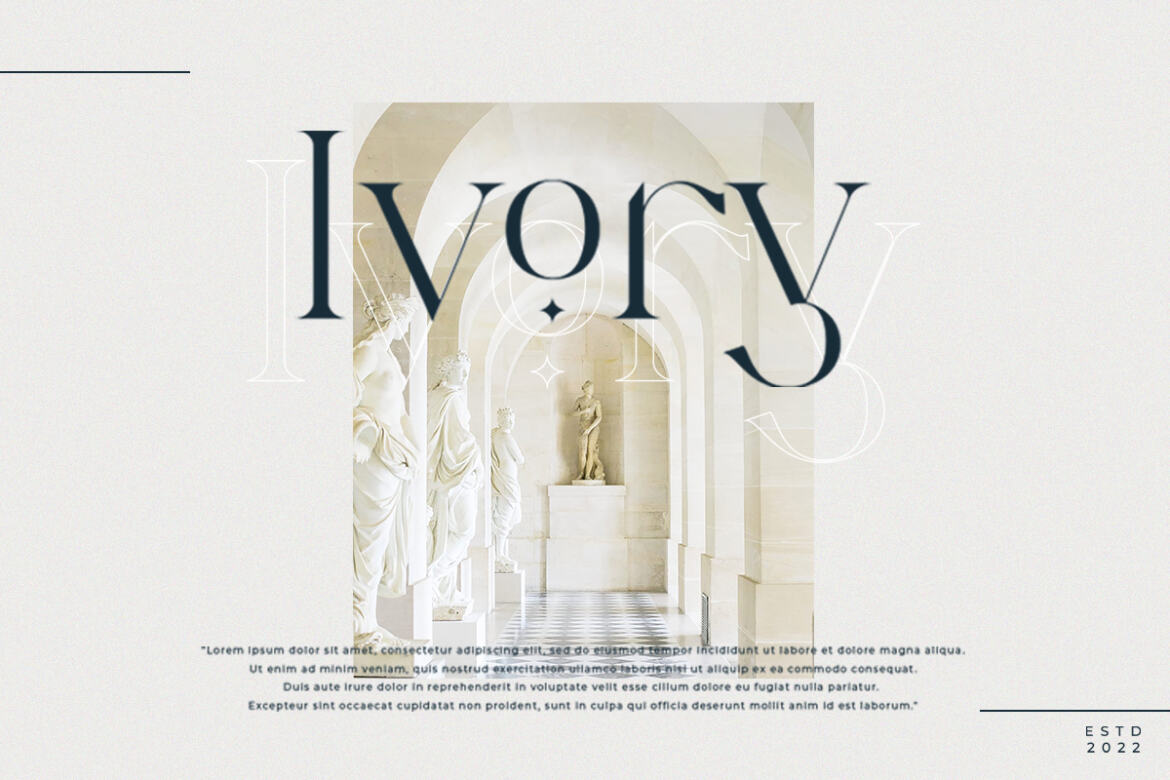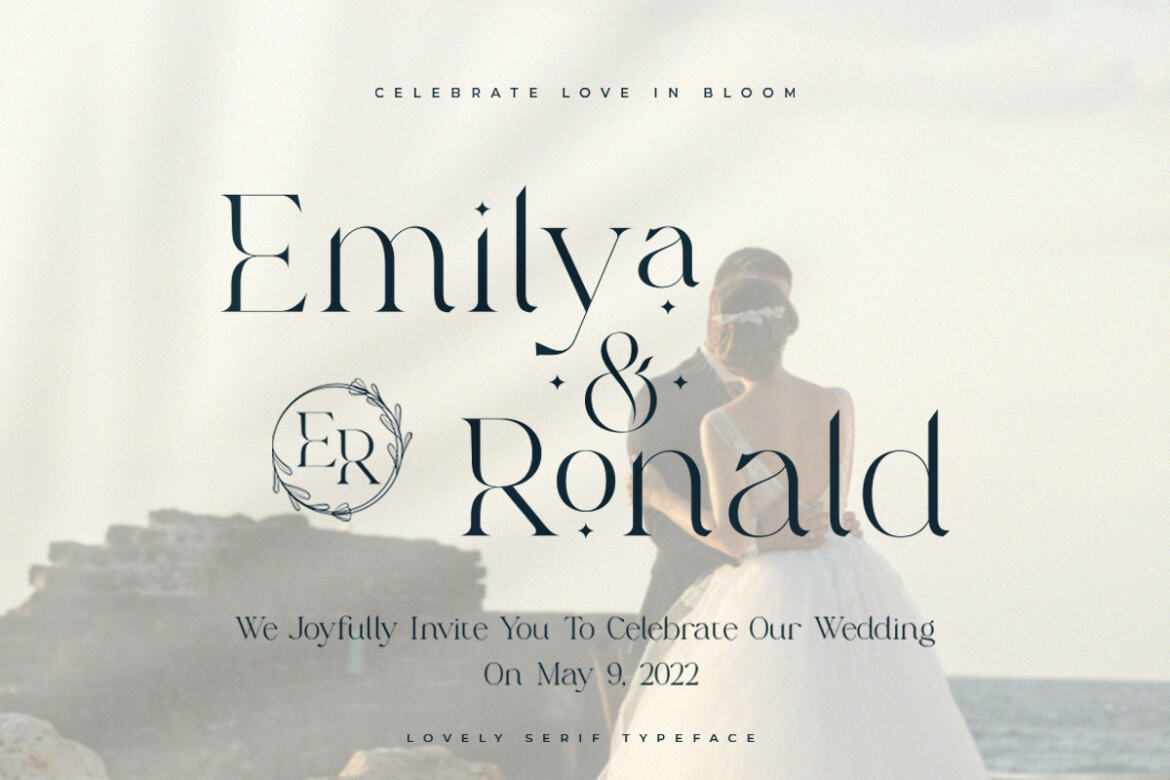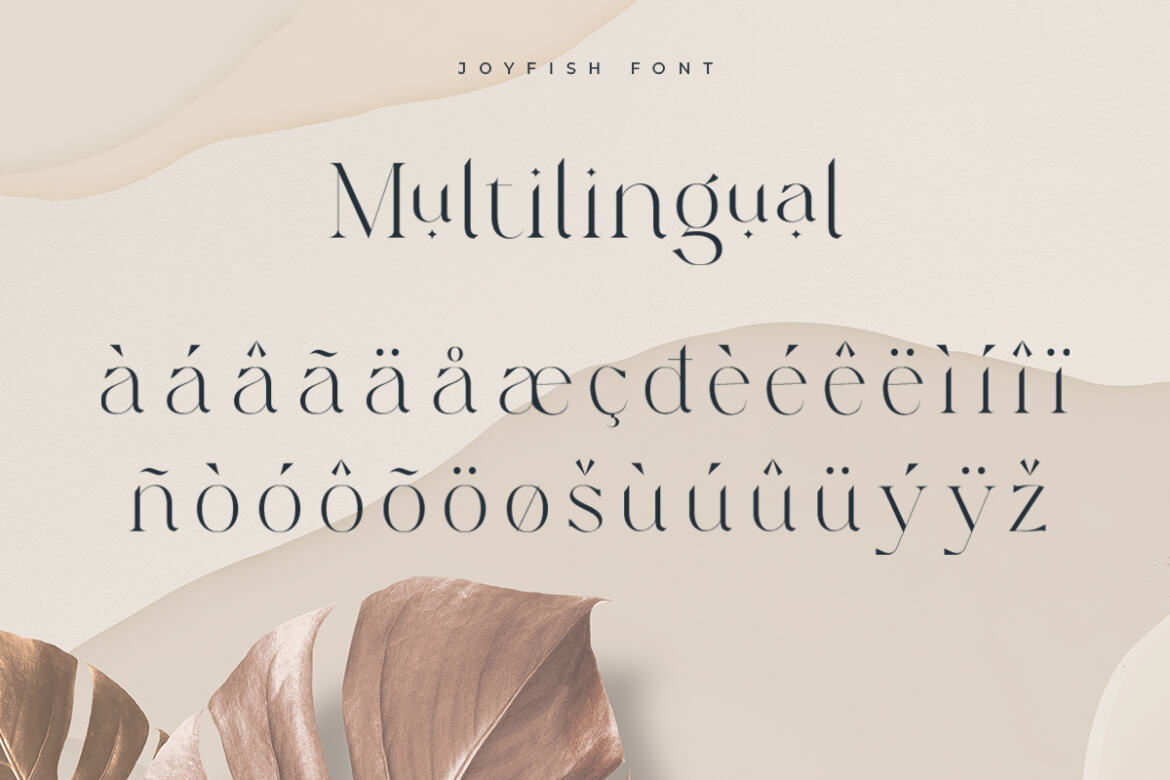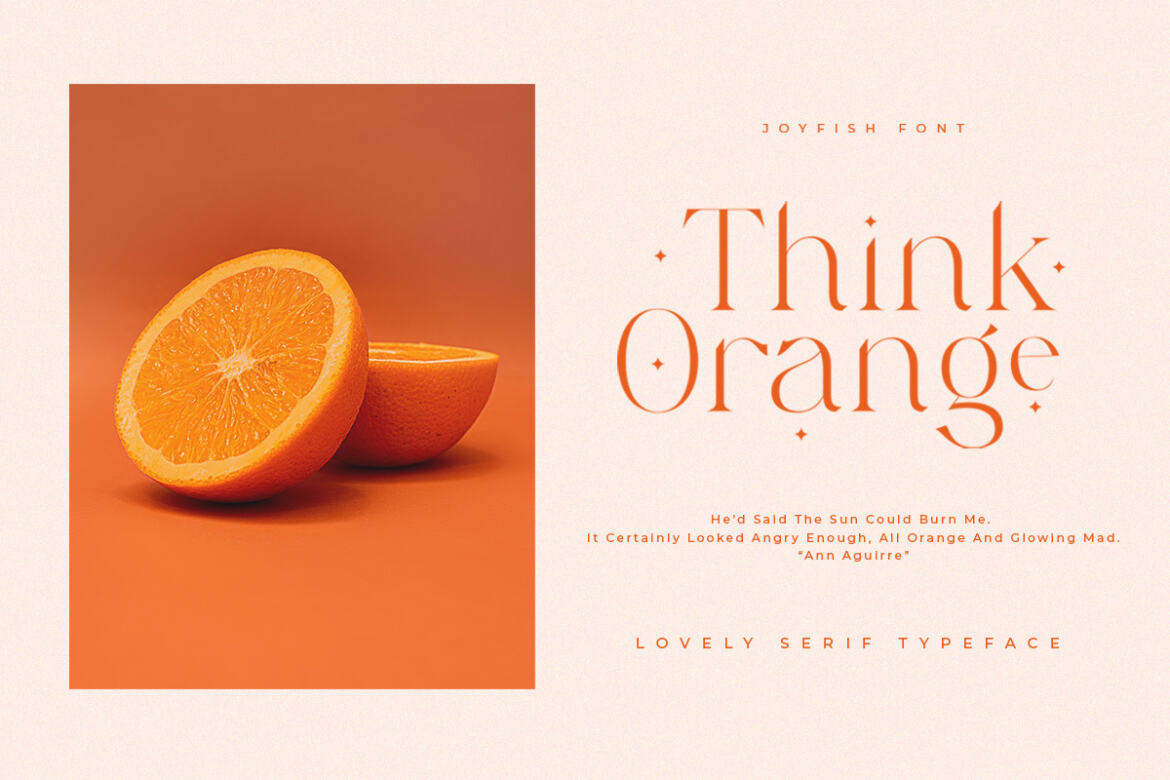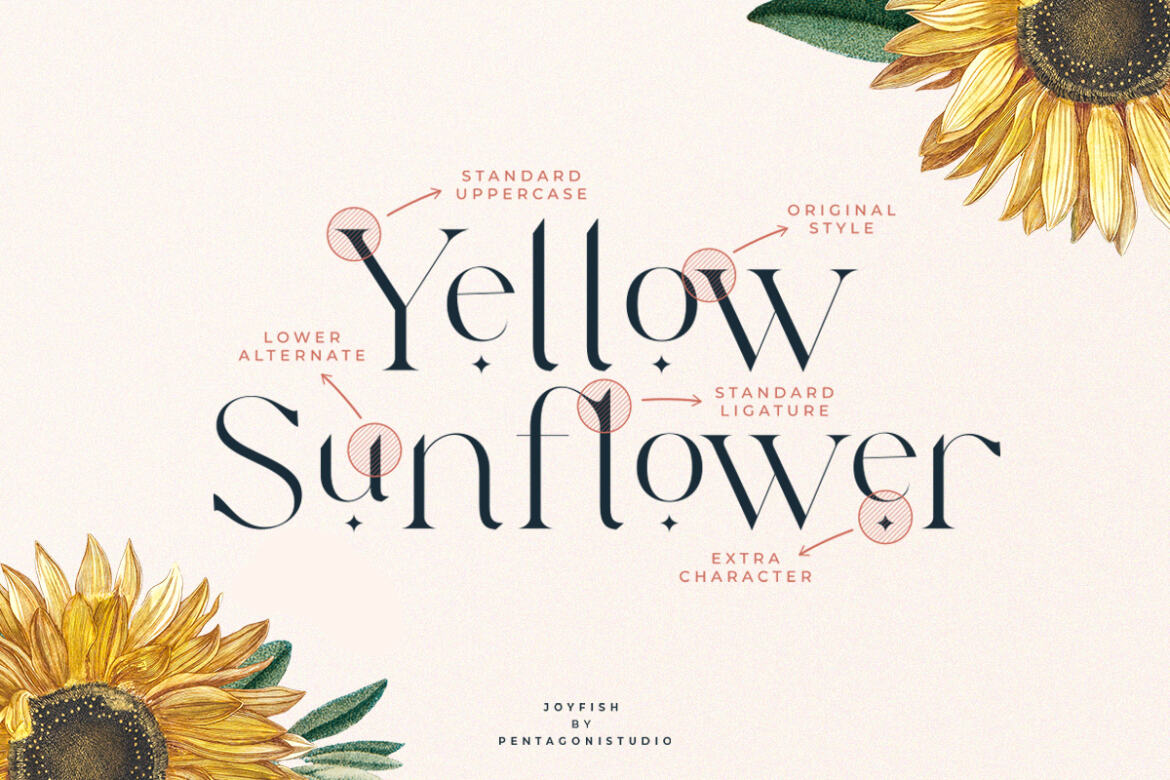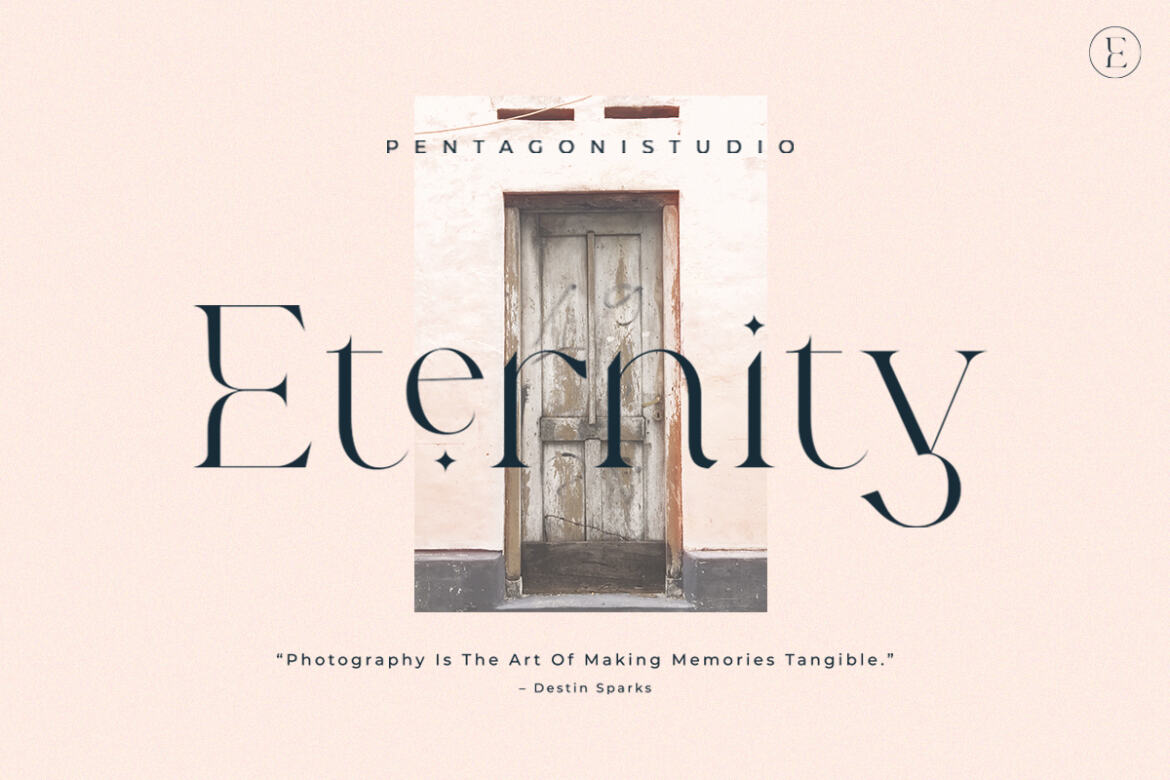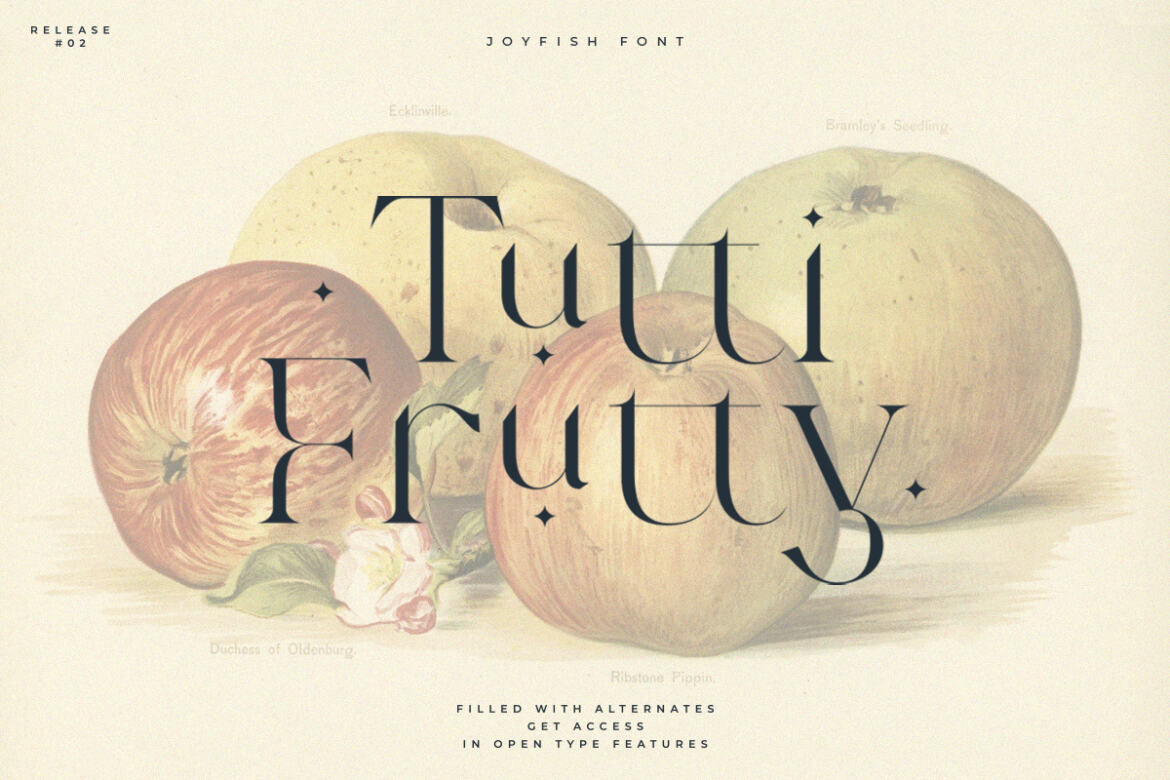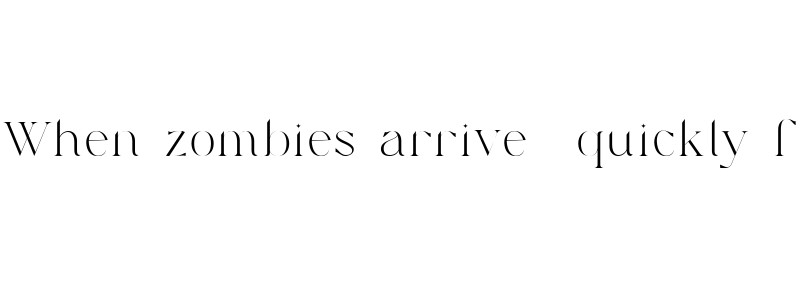
Joyfish FREE Demo Font
Joyfish Is An Lovely Serif Font Inspired By Luxury and Feminine Character.
Font Features :
• • alternates
• • ligatures
• • multilingual
• • numbers and punctuation
• • uppercase & lowercase